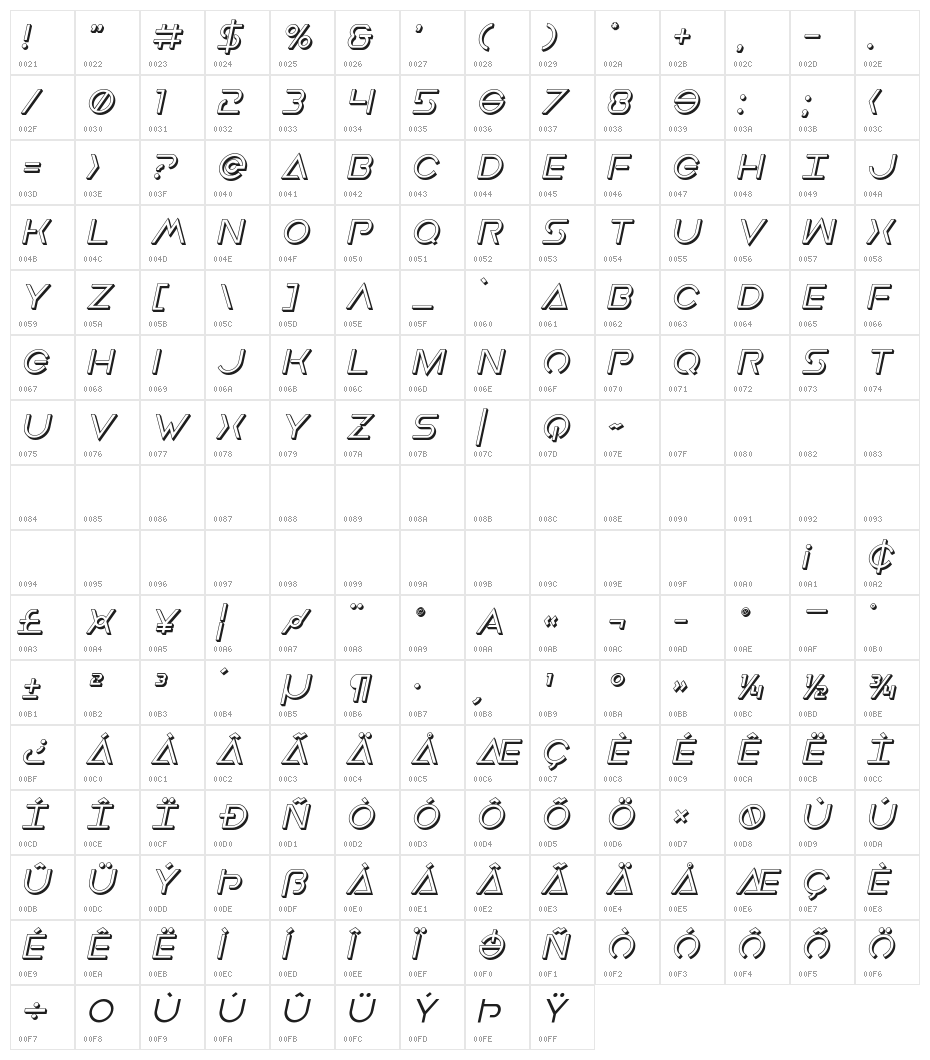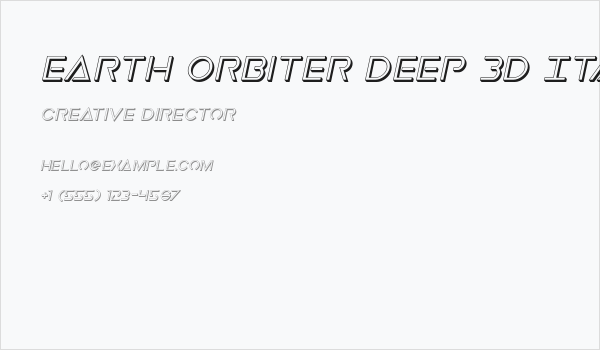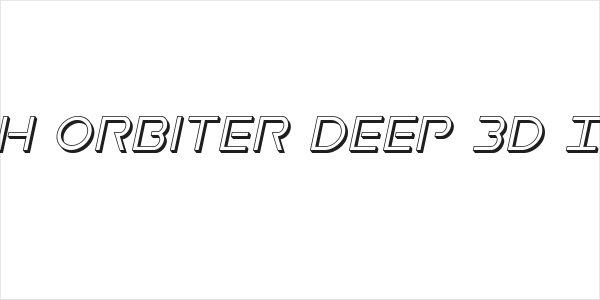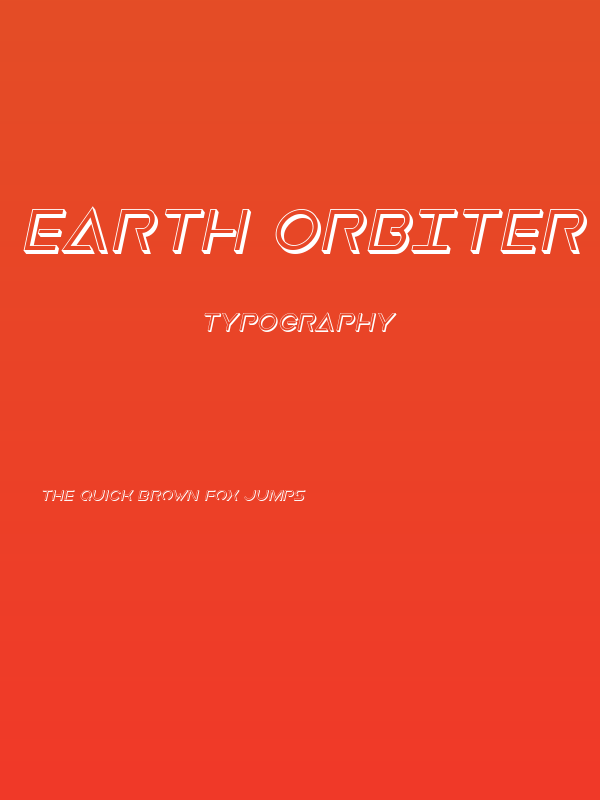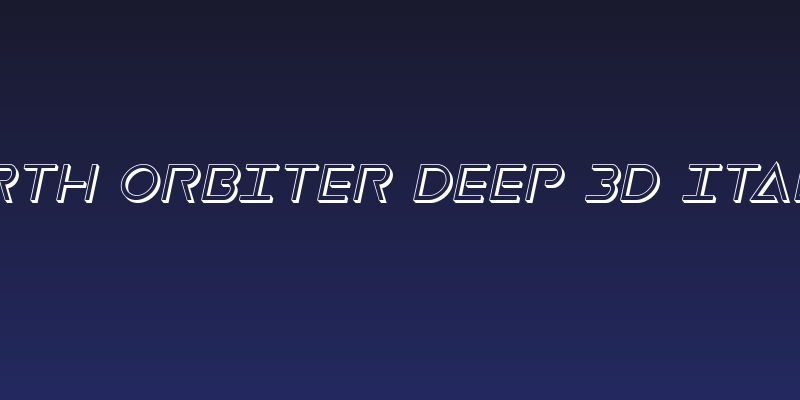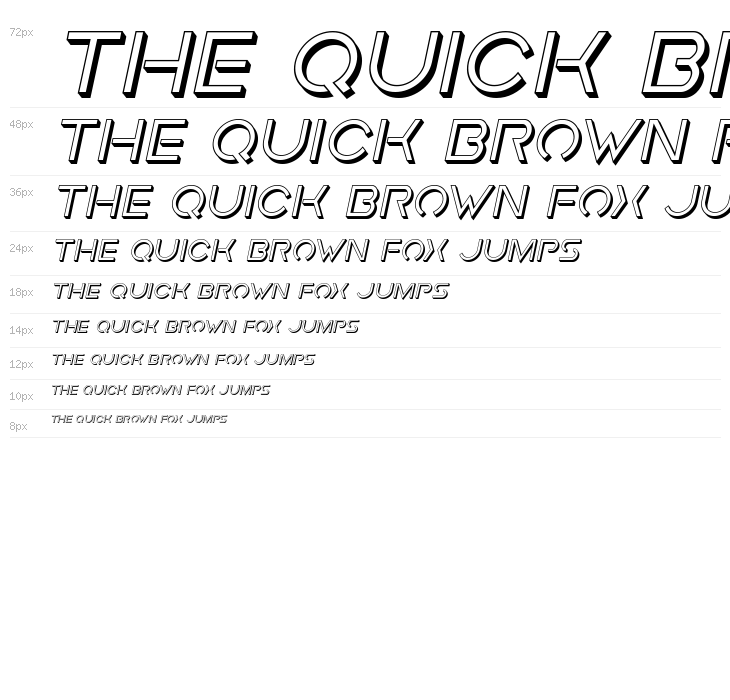
Earth Orbiter Deep 3D Italic Font
Earth Orbiter Deep 3D Italic Description
This font features a futuristic and dynamic design with a 3D effect, giving each character a sense of depth and movement. The letters are italicized, adding to the sense of forward motion. The geometric shapes and clean lines create a modern and sleek appearance, making it suitable for projects that require a contemporary and innovative look. The font includes both uppercase and lowercase letters, numerals, and a variety of special characters, all maintaining the consistent 3D style. The overall aesthetic is bold and eye-catching, perfect for making a strong visual impact.
| Proposed Projects | Ideal for sci-fi themed designs, technology branding, video game titles, and modern advertising. |